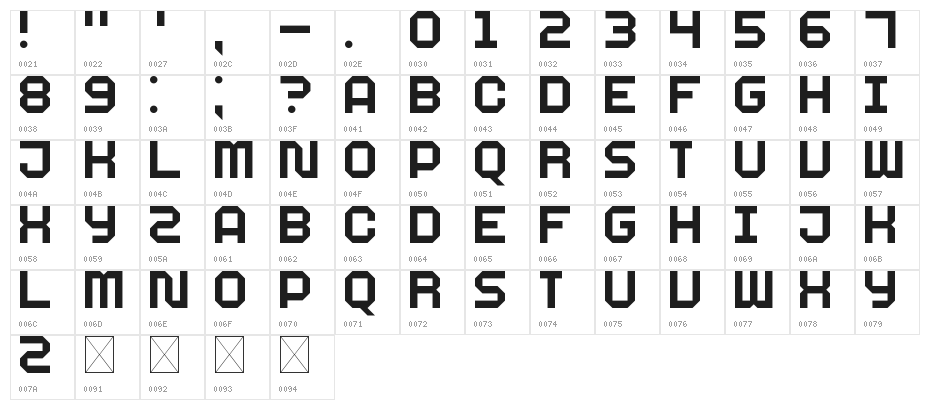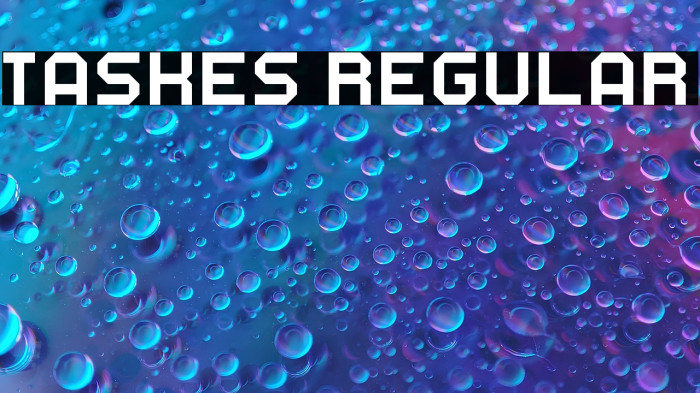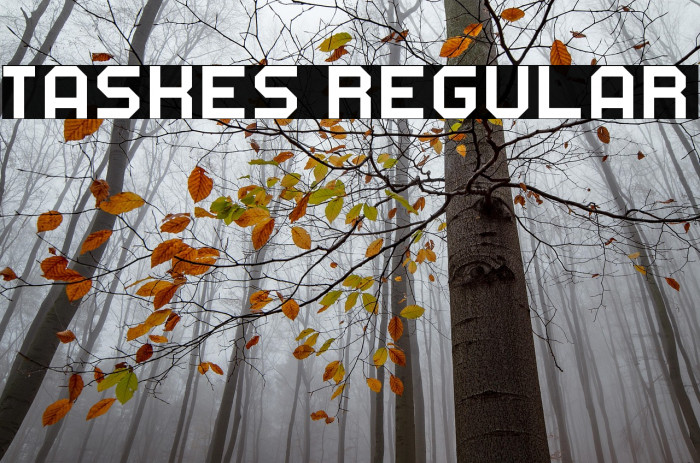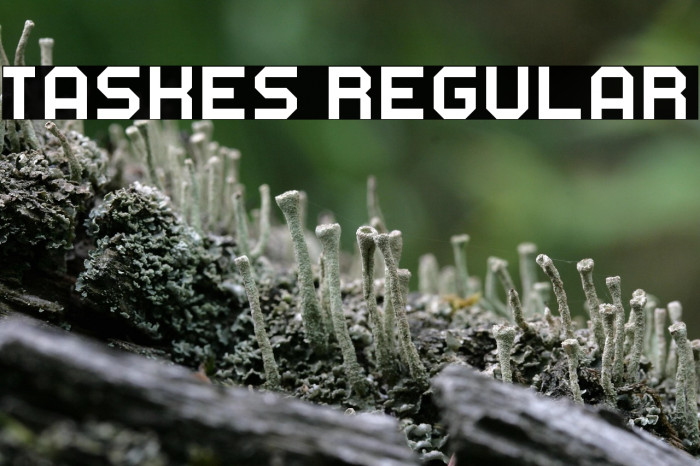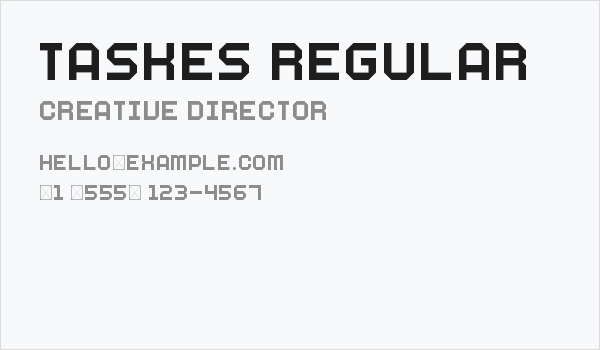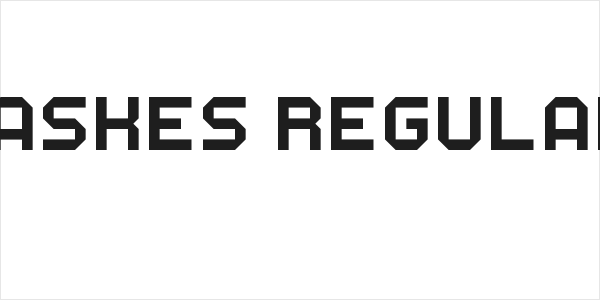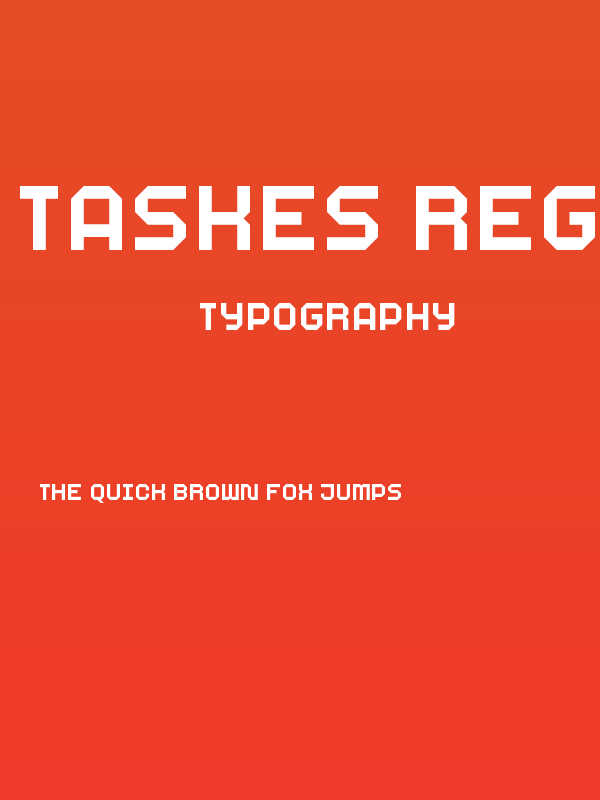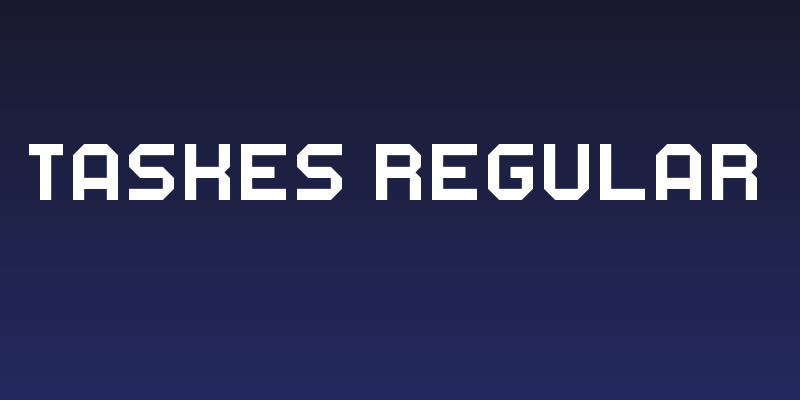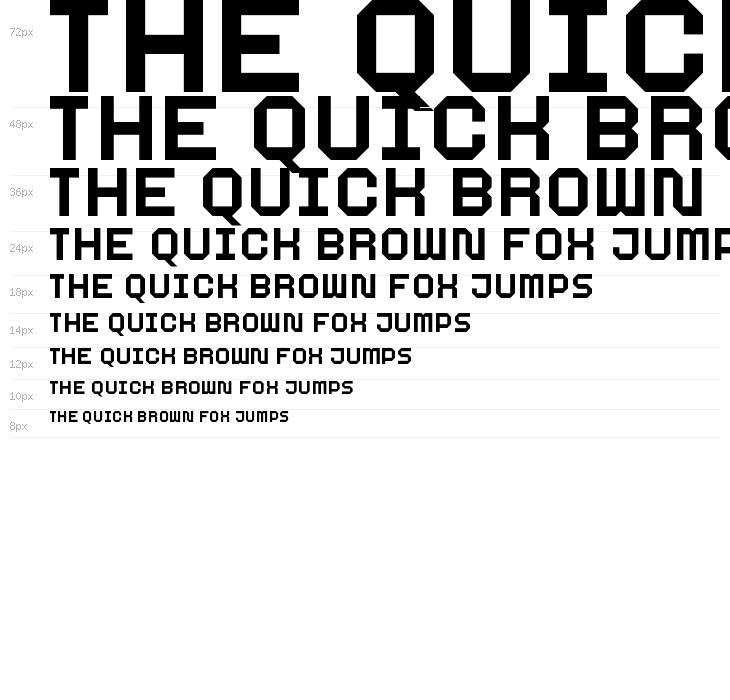
Taskes Regular Font
Taskes Regular Description
This font features a bold, geometric style with a strong emphasis on angular shapes and straight lines. The characters are uniformly structured, providing a cohesive and modern appearance. The uppercase and lowercase letters maintain a consistent height, contributing to a monospaced feel. The numerals and special characters are designed with the same angular precision, ensuring a seamless integration with the alphabetic characters. This font's design is reminiscent of digital or technological themes, making it suitable for projects that require a futuristic or industrial aesthetic.
| Use Case | Logos, Headlines, Digital interfaces |
| Proposed Projects | Ideal for technology branding, digital interfaces, video game design, and futuristic posters. |